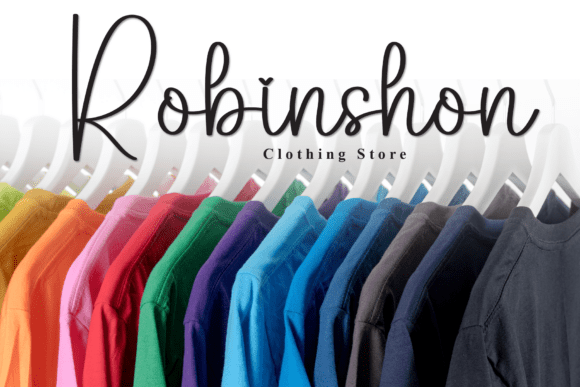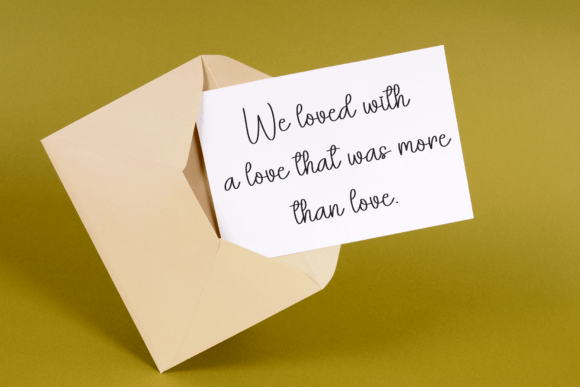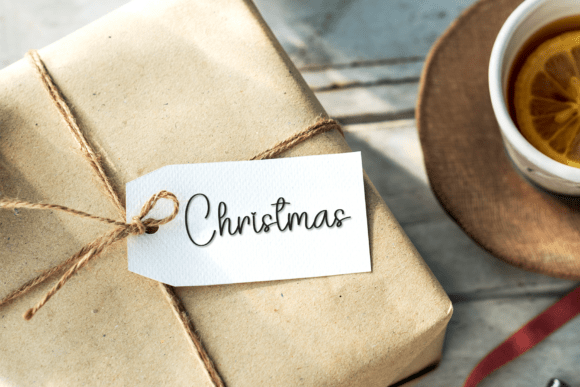
Introduction to Happy Graduate Font
Experience the magnetic allure of our expertly handcrafted β€˜Sweet and Friendly’ display font, poised to catapult your creative abilities.
Relish its tactile appeal and delightful character – an ideal choice for wedding invitations, greeting cards, or any art project that craves a vibrant touch Dive into a world of limitless creative possibilities with our engaging and intuitive signature-style font.
Why Choose Happy Graduate Font?
Happy Graduate Font offers exceptional quality and versatility, making it a valuable addition to your design toolkit. Whether you’re creating for personal projects or commercial use, Happy Graduate Font delivers professional results.